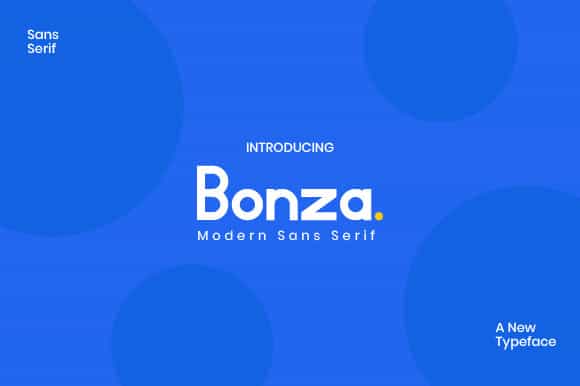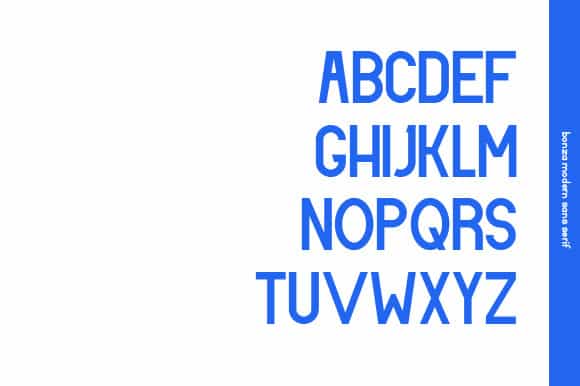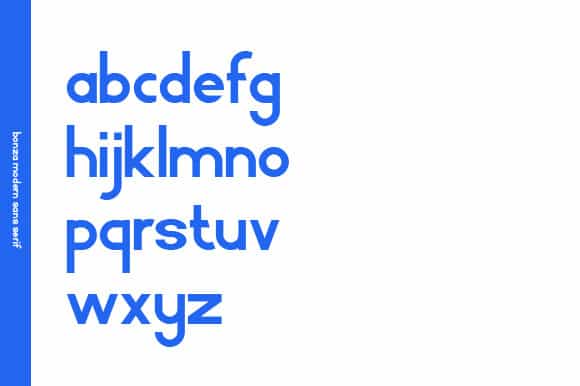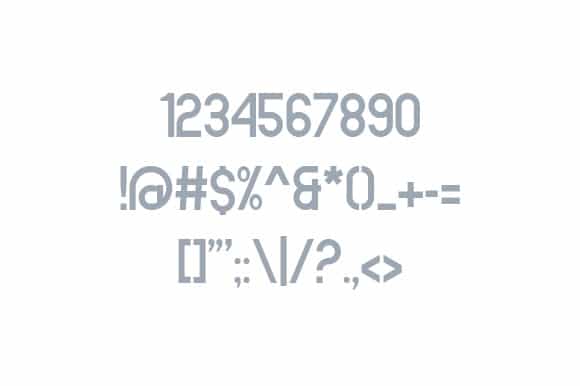
Bonza is an elegant, simple serif-free style font, making it easily adaptable to a range of designs and projects. Feel free to incorporate Bonza into your creative projects and watch how it stands out!